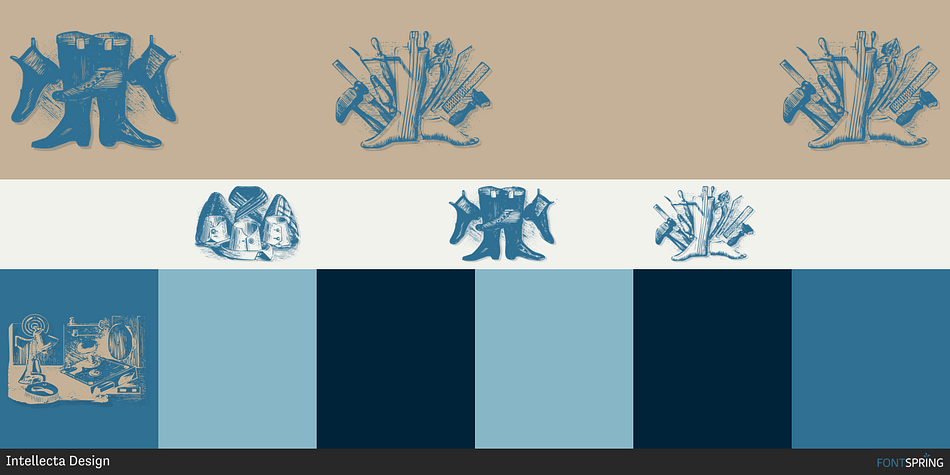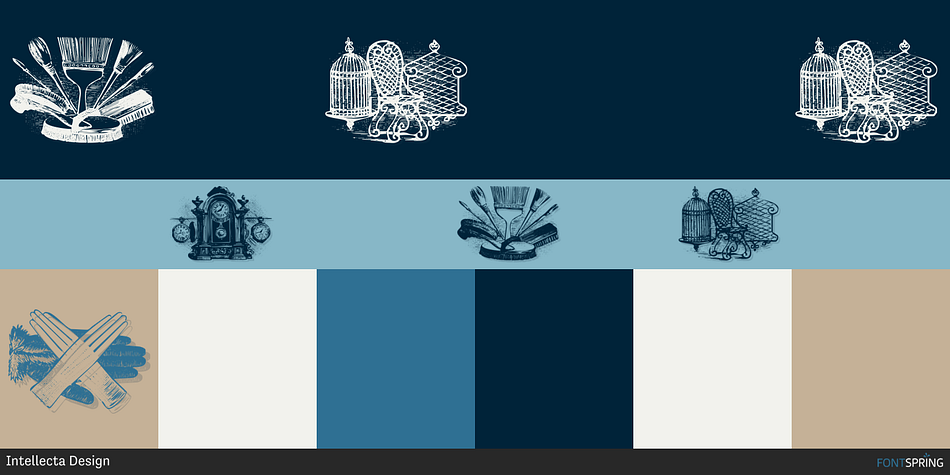
Bruce Miscelanea
Designed by Paulo W, Bruce Miscelanea is a historical and dingbat font family. This typeface has two styles and was published by Intellecta Design.
A pack of two fonts containing vintage and rare dingbats from the extra rare Bruce’s Typefoundry catalogue from 1800’s